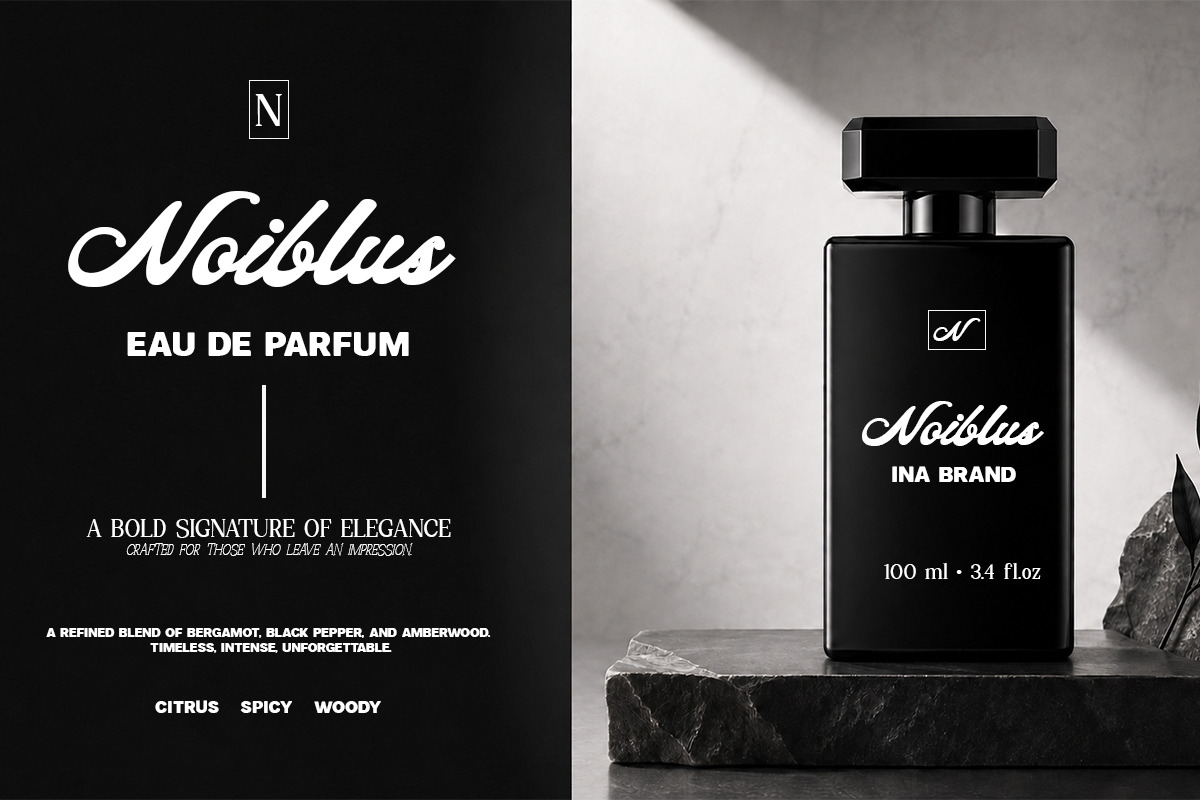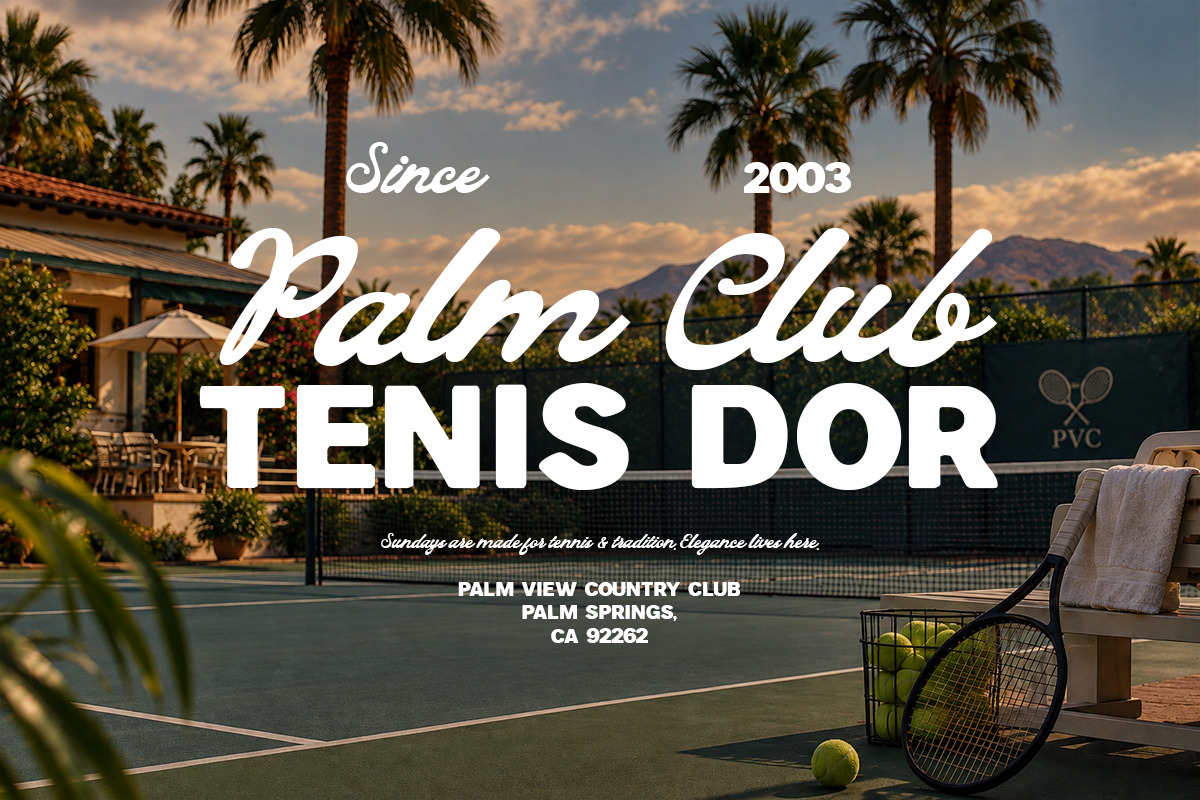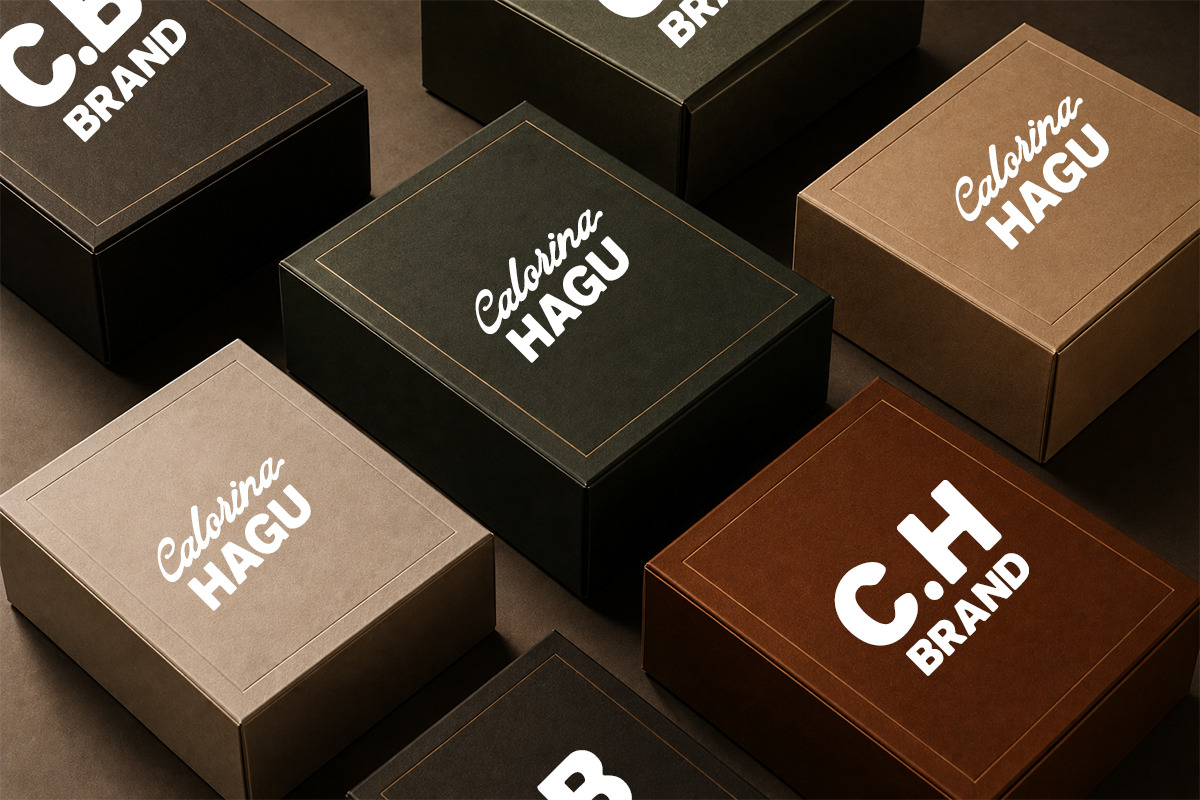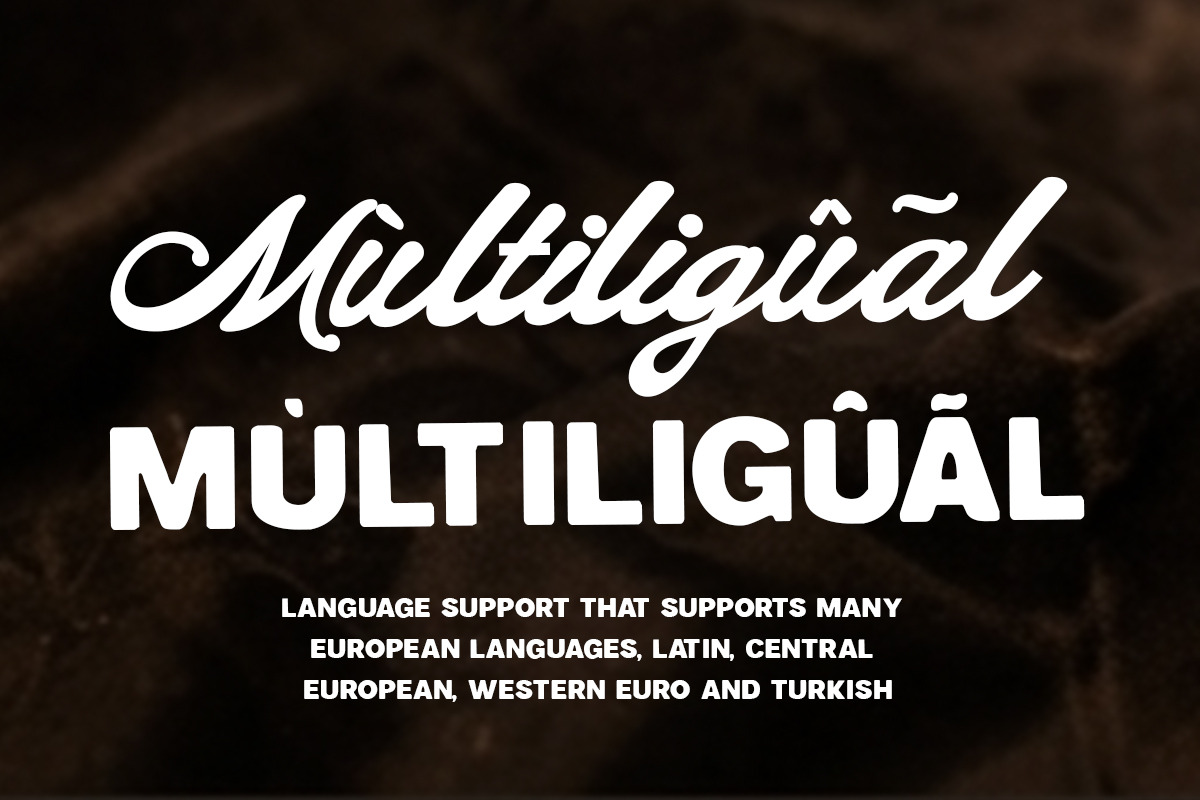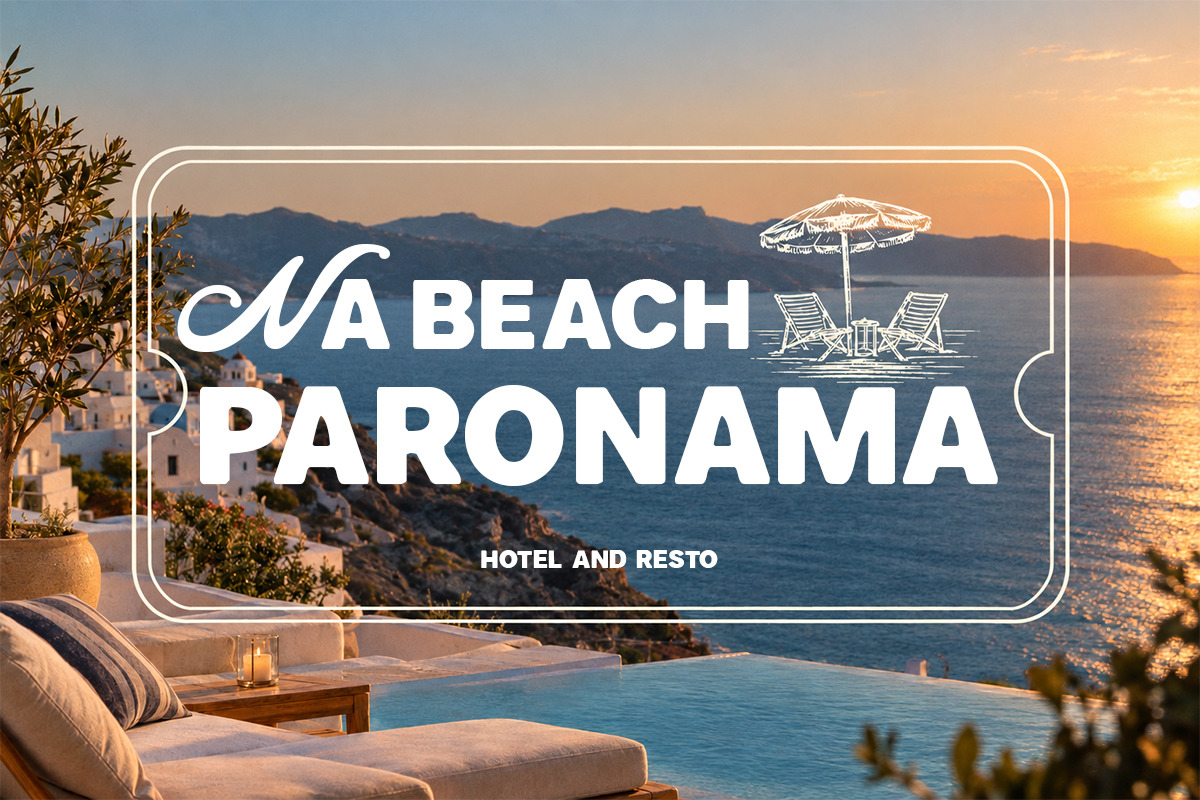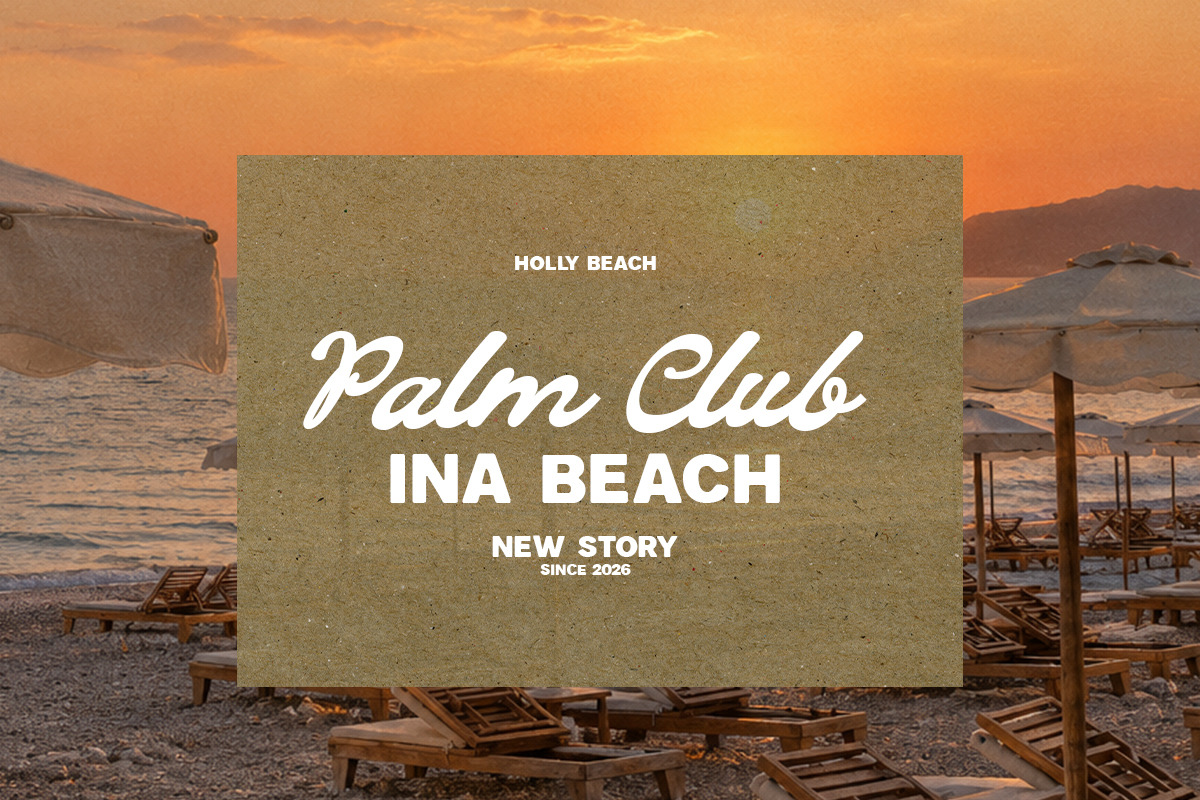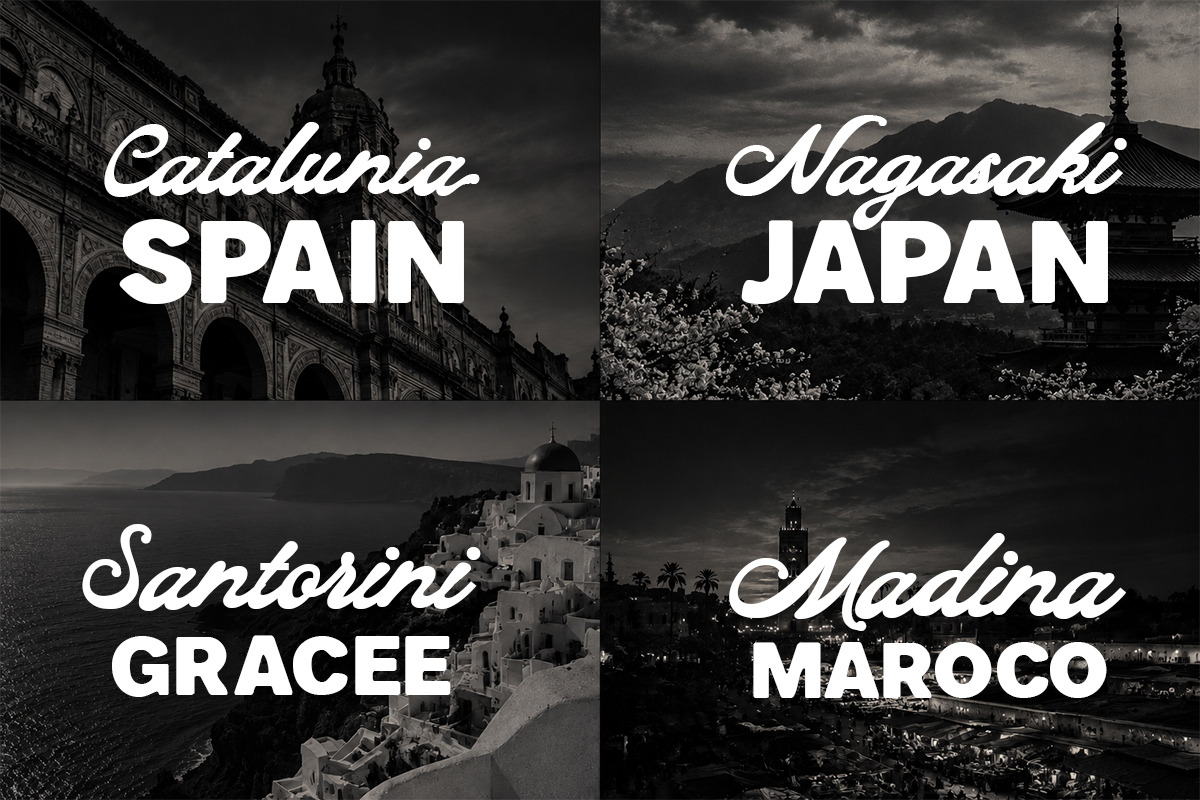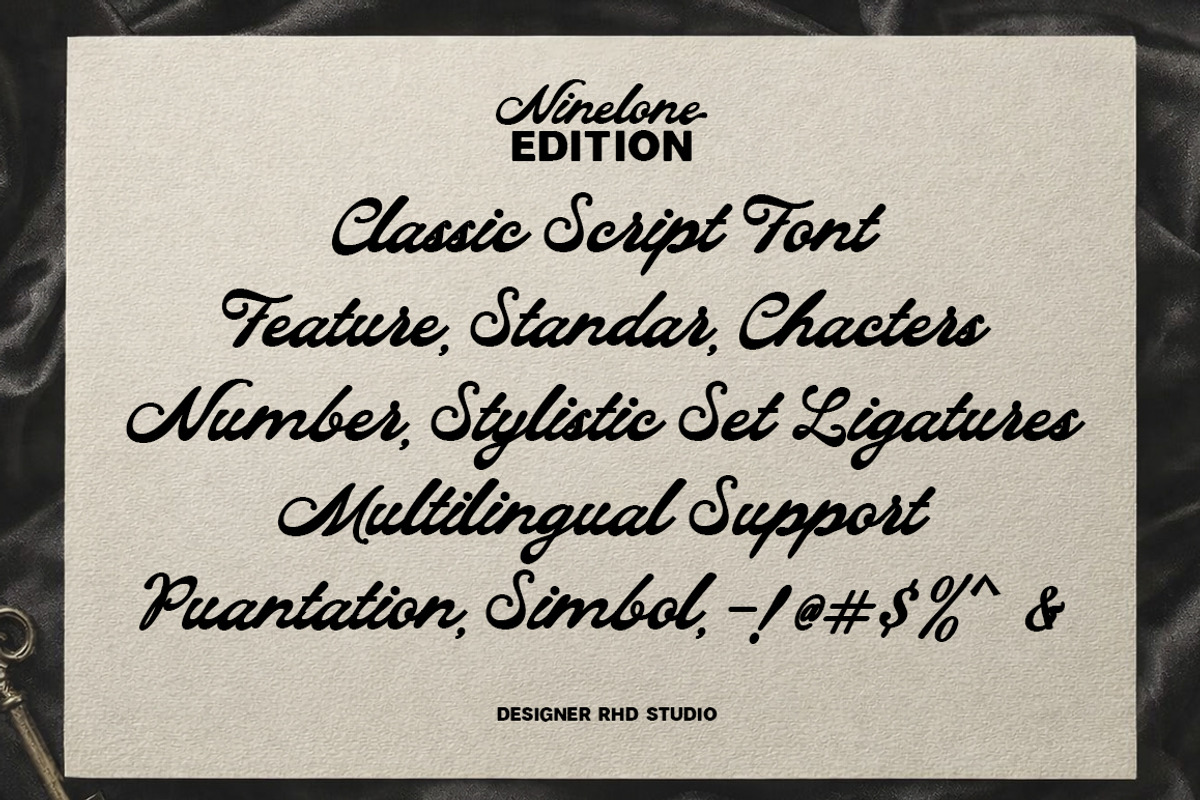
Ninelone Edition
Ninelone Editiont is a classy and elegant script font, designed to bring a touch of luxury and charm to your creative projects. With its smooth curves, stylish strokes, and perfectly balanced flow, this font creates a natural handwritten feel while maintaining a high-end look.
Carefully designed for versatility, Ninelone Edition is perfect for logos, branding, wedding invitations, social media, packaging, and more. Its modern yet timeless style makes it ideal for designers who want to create eye-catching and sophisticated designs with ease.
Let Ninelone Edition elevate your work with its graceful character and refined beauty—the perfect choice for adding a premium and unforgettable touch to any project.